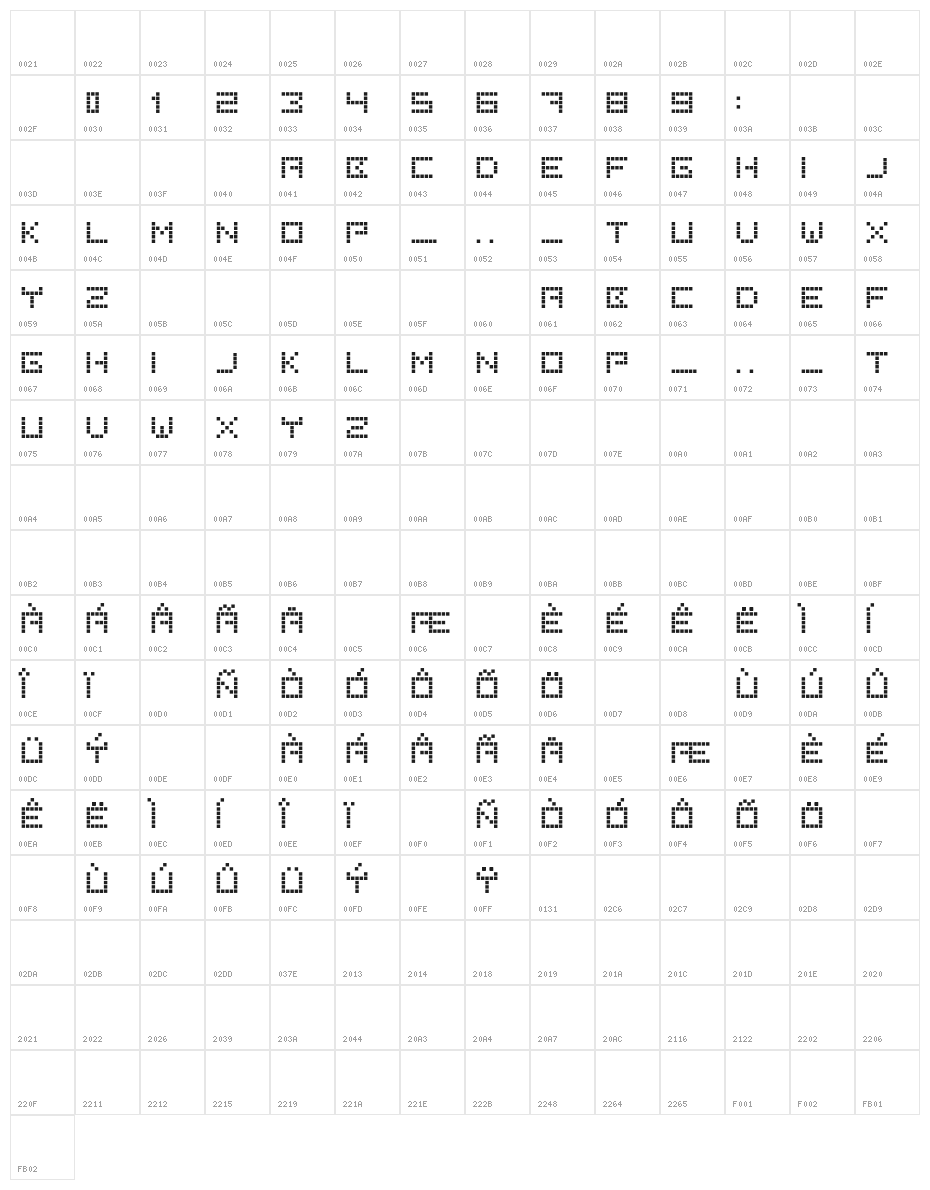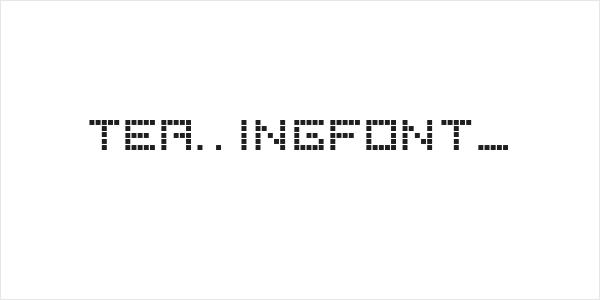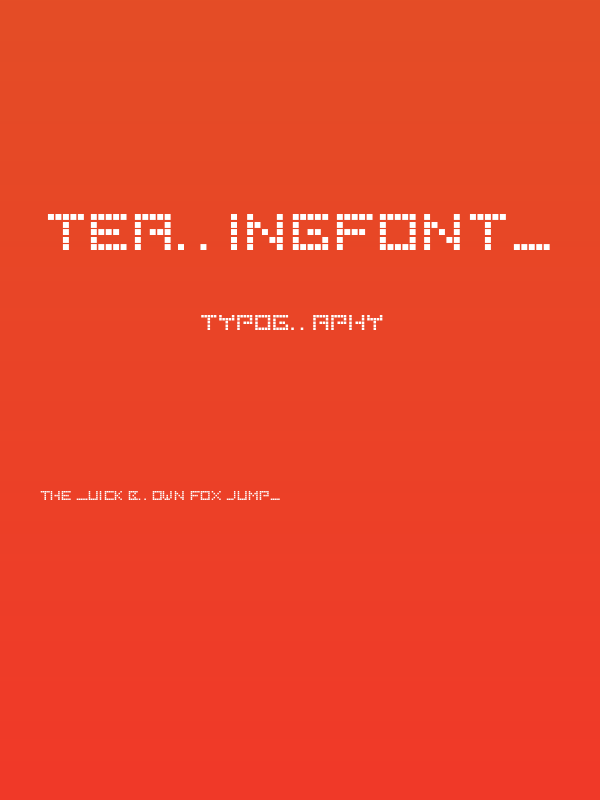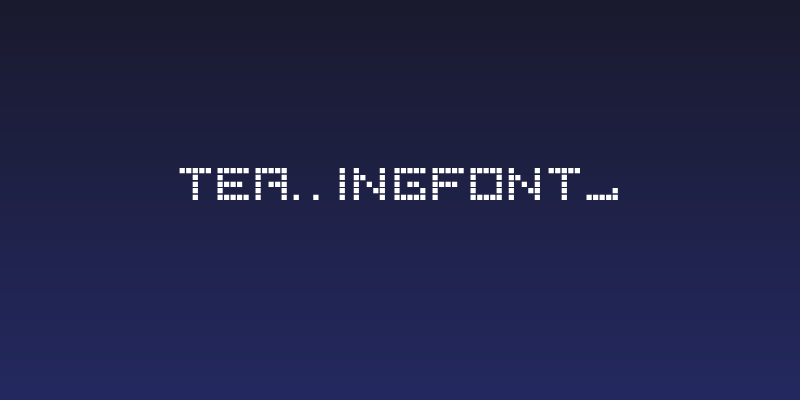
TearingFonts Font
TearingFonts Description
This font features a unique design composed entirely of small square dots, creating a pixelated effect reminiscent of early digital displays. Each character is formed by a grid-like arrangement of these dots, giving it a distinct, retro digital appearance. The uniformity of the squares provides a consistent texture across all characters, making it highly recognizable and suitable for digital-themed projects. The font maintains a consistent height and width for each character, ensuring a balanced and orderly presentation. Its geometric nature and lack of curves contribute to a modern and minimalist aesthetic, ideal for conveying a sense of technology and innovation.
| Proposed Projects | Ideal for digital art, retro-themed designs, tech branding, and video game graphics. |